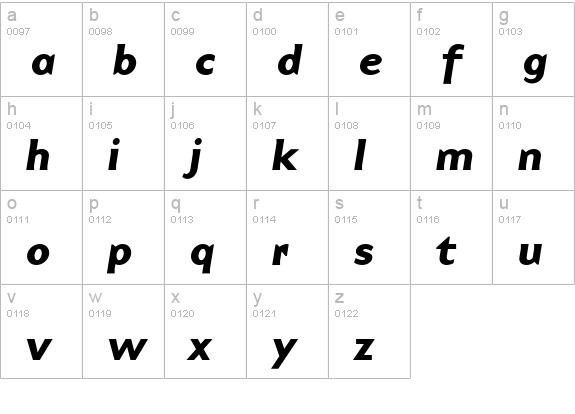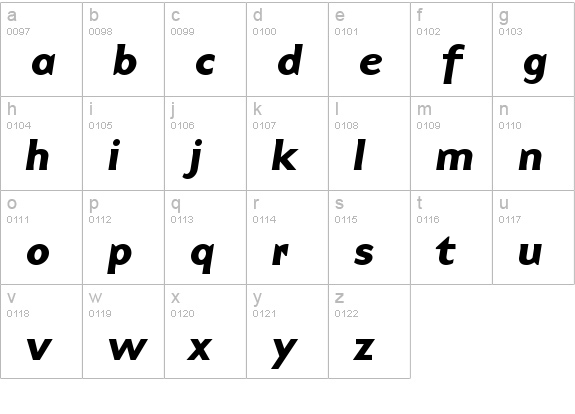
BaseNineBI Font Details
BaseNineBI is a sleek and modern font that combines elegance with functionality. Its clean lines and contemporary design make it perfect for a wide range of design projects, from branding to advertising to web design. The font features a unique blend of sharp angles and smooth curves, giving it a distinctive and eye-catching look. What sets BaseNineBI apart is not just its stylish appearance, but also its versatility. Whether you're creating a logo, a poster, a website, or any other design, this font will help you make a bold statement. Best of all, BaseNineBI is available for free download at FontsMarket.com. This means you can start using this fantastic font in your projects right away, without any added cost. So why wait? Download BaseNineBI today and take your designs to the next level!